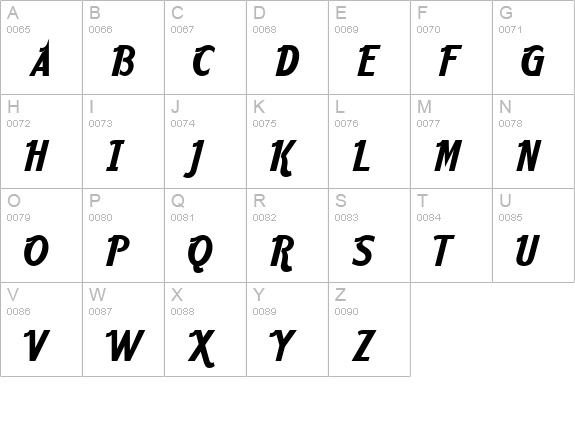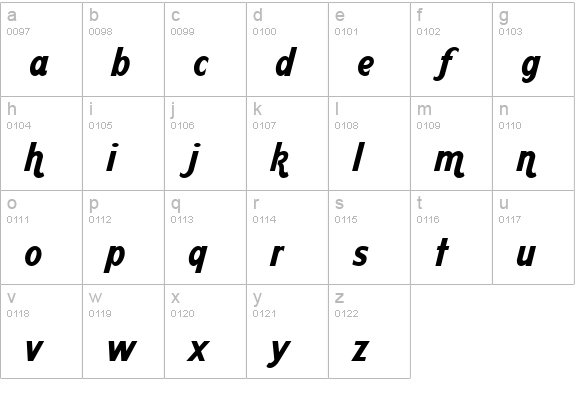
Aardvark Cafe Font Details
Introducing Aardvark Cafe, a delightful and charming font that exudes a sense of warmth and friendliness. This unique typeface effortlessly combines elegant curves with a touch of whimsy, making it perfect for a wide range of creative projects. Aardvark Cafe captures the essence of a cozy, neighborhood cafe with its hand-drawn letterforms that evoke memories of handwritten menu boards and charming signage. Its smooth and flowing lines bring a sense of organic beauty to any design, giving it a personal and welcoming touch. What sets Aardvark Cafe apart is not just its exceptional design, but also the fact that it is free to download. Yes, you heard it right! This fantastic font is freely available for download at FontsMarket.com, making it accessible to all designers, whether they are professionals or beginners. Whether you are working on a logo, a branding project, a website, or even a handmade invitation, Aardvark Cafe will add an extra touch of elegance and creativity. Its versatility allows it to shine in both digital and print mediums, ensuring that your design stands out from the crowd. With Aardvark Cafe, you can effortlessly create eye-catching headlines, captivating posters, or even add a personal touch to your social media posts. Its unique charm will leave a lasting impression on your audience, making your designs memorable and engaging. So why wait? Head over to FontsMarket.com and download Aardvark Cafe for free today! Embrace the beauty of this exceptional font and let your creativity flow freely, igniting inspiration and captivating your audience with its delightful charm.